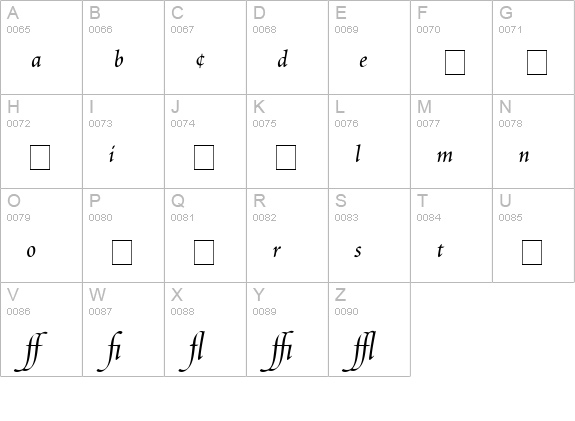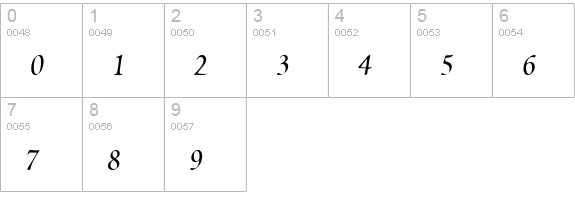
Scriptoria Pro SSi Font Details
Scriptoria Pro SSi is a captivating and versatile font that effortlessly combines elegance and readability. With its smooth lines and intricate details, this font exudes a sense of sophistication and charm that is perfect for any creative project. Whether you are designing invitations, crafting logos, or creating stunning typography, Scriptoria Pro SSi is sure to leave a lasting impression. This font's timeless appeal is enhanced by its wide range of characters, including uppercase and lowercase letters, numbers, punctuation marks, and special symbols. Each character is flawlessly designed to maintain legibility while adding a touch of artistic flair to your designs. The thoughtful spacing and balanced proportions ensure that your text flows seamlessly, creating a harmonious visual experience. One of the best aspects of Scriptoria Pro SSi is that it is free to download at FontsMarket.com. This means that you can enjoy the benefits of this exceptional font without any cost. Whether you are a professional designer or a hobbyist, having access to high-quality fonts like Scriptoria Pro SSi can elevate your work and make it stand out from the crowd. With its versatility and aesthetic appeal, Scriptoria Pro SSi is suitable for a wide range of projects. From elegant wedding invitations to eye-catching advertisements, this font has the ability to transform any ordinary design into something extraordinary. Its timeless beauty and easy readability make it an excellent choice for both print and digital media. In conclusion, Scriptoria Pro SSi is a remarkable font that effortlessly combines elegance, readability, and versatility. Its smooth lines, intricate details, and balanced proportions make it a standout choice for any creative project. And with the added bonus of being freely available to download at FontsMarket.com, there is no reason not to add this exceptional font to your collection. So go ahead, unleash your creativity, and let Scriptoria Pro SSi take your designs to new heights.